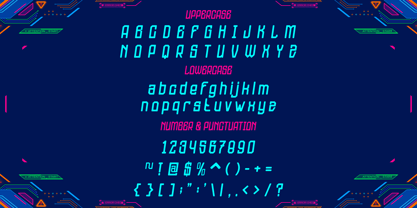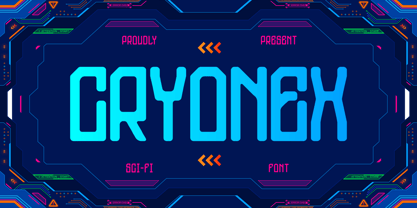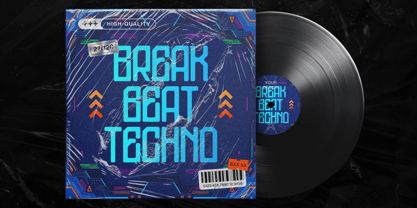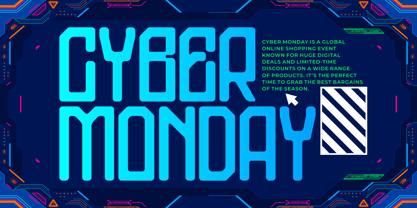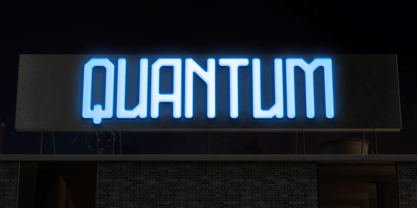
Cryonex
por Shanaf
La familia tipográfica Cryonex fue diseñada por Yesie Erma Yunita y publicada por Shanaf. Cryonex contiene 2 estilos y opciones de paquete familiar. Más información sobre esta familia
Cryonex Scifi Font delivers a sharp futuristic structure with clean geometric construction and strong digital energy. The characters use tall proportions, medium-bold strokes, rounded inner corners, and compact spacing. Several letters feature cut edges and angular terminals that create a mechanical rhythm. The font feels structured, modern, and highly controlled while keeping a sleek sci-fi personality. Its condensed form helps large titles appear powerful without consuming too much space. Cryonex Scifi Font works perfectly for technology branding, esports identities, software products, gaming studios, electronic music labels, and futuristic startup visuals. The style combines techno, cyberpunk, digital, sci-fi, robotic, and industrial influences. Designers can use it for logos, branding systems, posters, banners, packaging, streaming graphics, and strong promotional headlines.
This typeface performs strongly in futuristic movie titles, gaming interfaces, tech advertisements, electronic event flyers, and digital magazine covers. The uppercase letters create commanding headline compositions, while the lowercase keeps layouts balanced and readable. Numeric characters and punctuation maintain the same clean cyber aesthetic, supporting interface-based projects and modern branding needs. The smooth stroke transitions help the font stay readable even in compact layouts. This style fits themes related to artificial intelligence, robotics, virtual reality, coding culture, sci-fi entertainment, and futuristic architecture. It also suits gadget stores, digital agencies, music campaigns, gaming communities, and innovation-focused businesses. The overall appearance feels fast, intelligent, minimal, and technologically driven without losing visual impact.